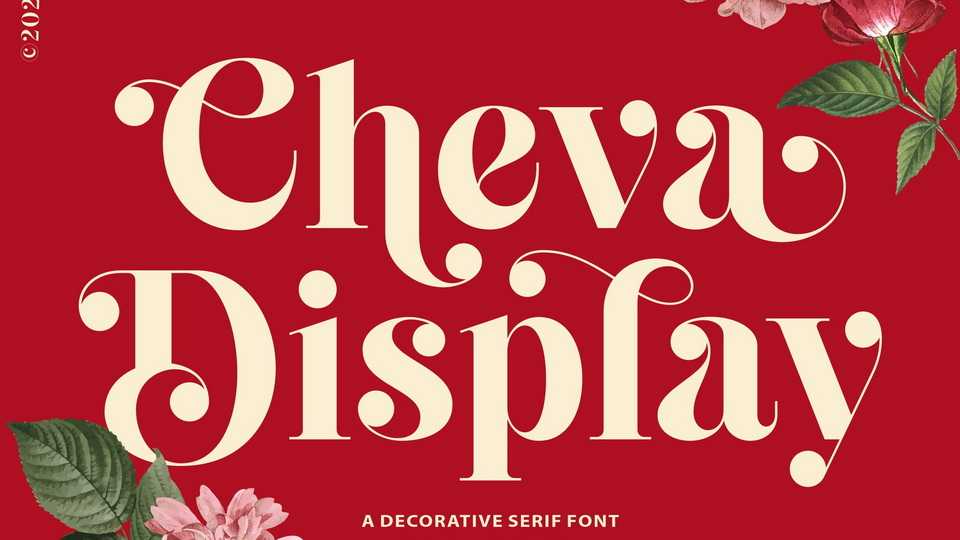
Download Cheva Display font, a bold serif typeface with a touch of fine curves. Cheva Display brings vintage look as well as modern designs.
Designer: Letteralle Studio